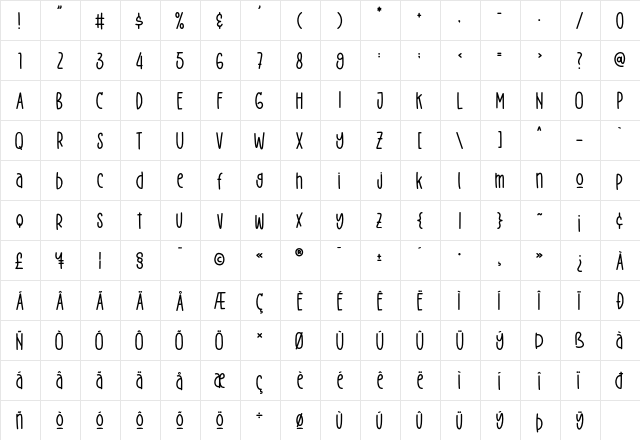
Delight Love Regular
Design Context for Delight Love Typeface
Delight Love takes a measured approach to typography — its balanced proportions and neutral character make it a reliable workhorse for both digital and print work. Its slender proportions lend an understated elegance to any composition.